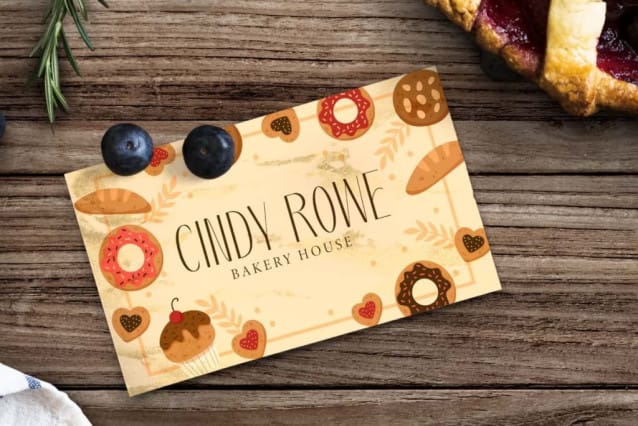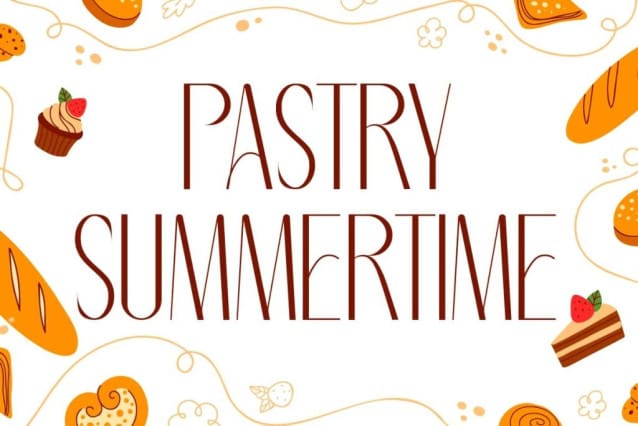
Pastry Summertime Font
Pastry Summertime Font is a modern sophisticated display font that exudes timeless charm. It looks very sophisticated and fun, carefully designed every single one so that it is born perfect for both print and digital applications. Good for banner, brochure, business card designs, cover, flyer, headers, invitation, menus, packaging, poster, quotes, sticker, title, watermark, website, and many other things.
Pastry Summertime Font contains a complete set of basic Uppercase and Lowercase characters, Numbers, Symbols and Punctuation. It has graceful letterforms with balanced proportions that create a visually appealing aesthetic. This makes it a charming standalone font, but it will also pair beautifully when placed side by side. Perfect for bakery, cafes, food vlogger, graphic design, handicraft, home furniture, pastry chef, photography, restaurant, etc.